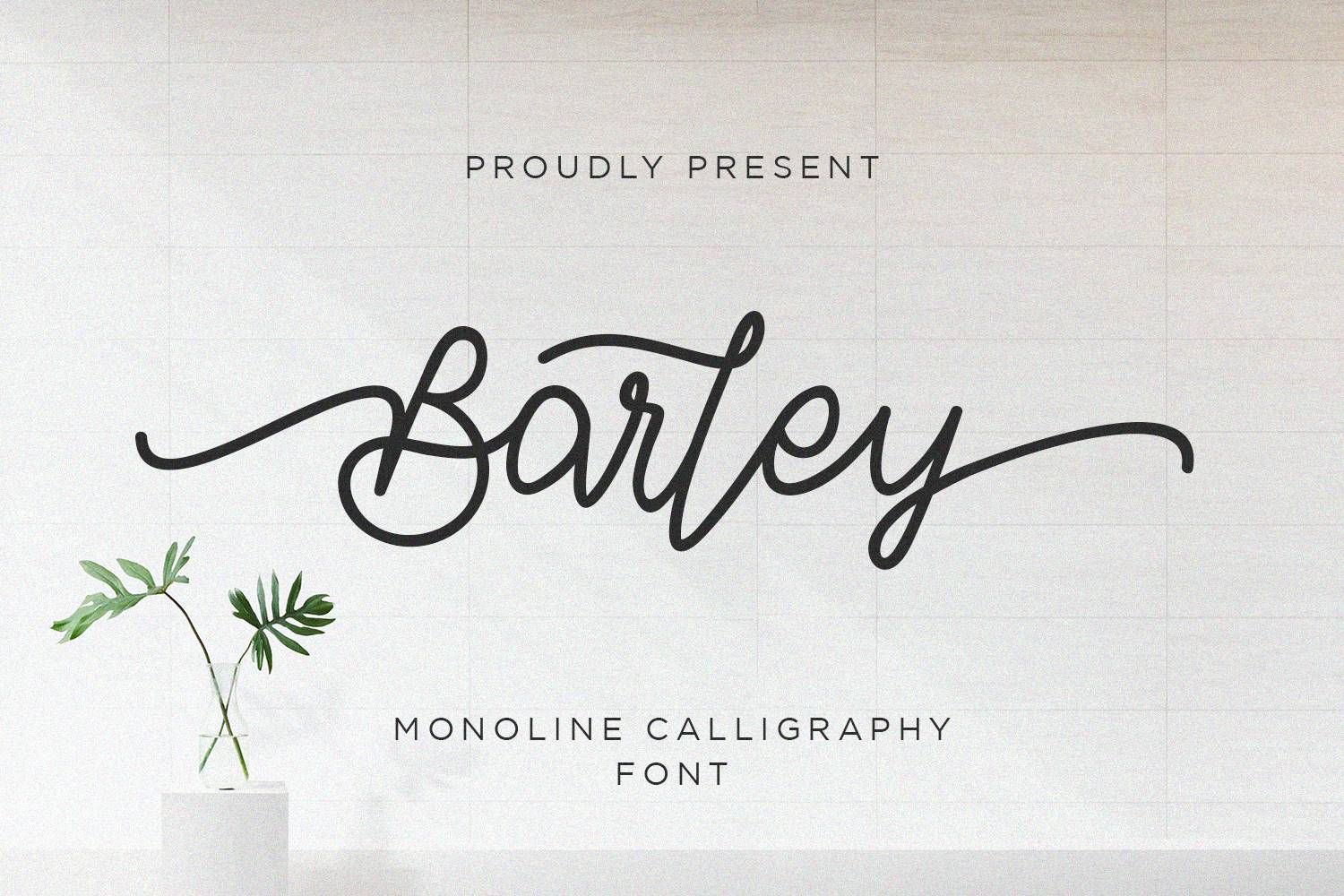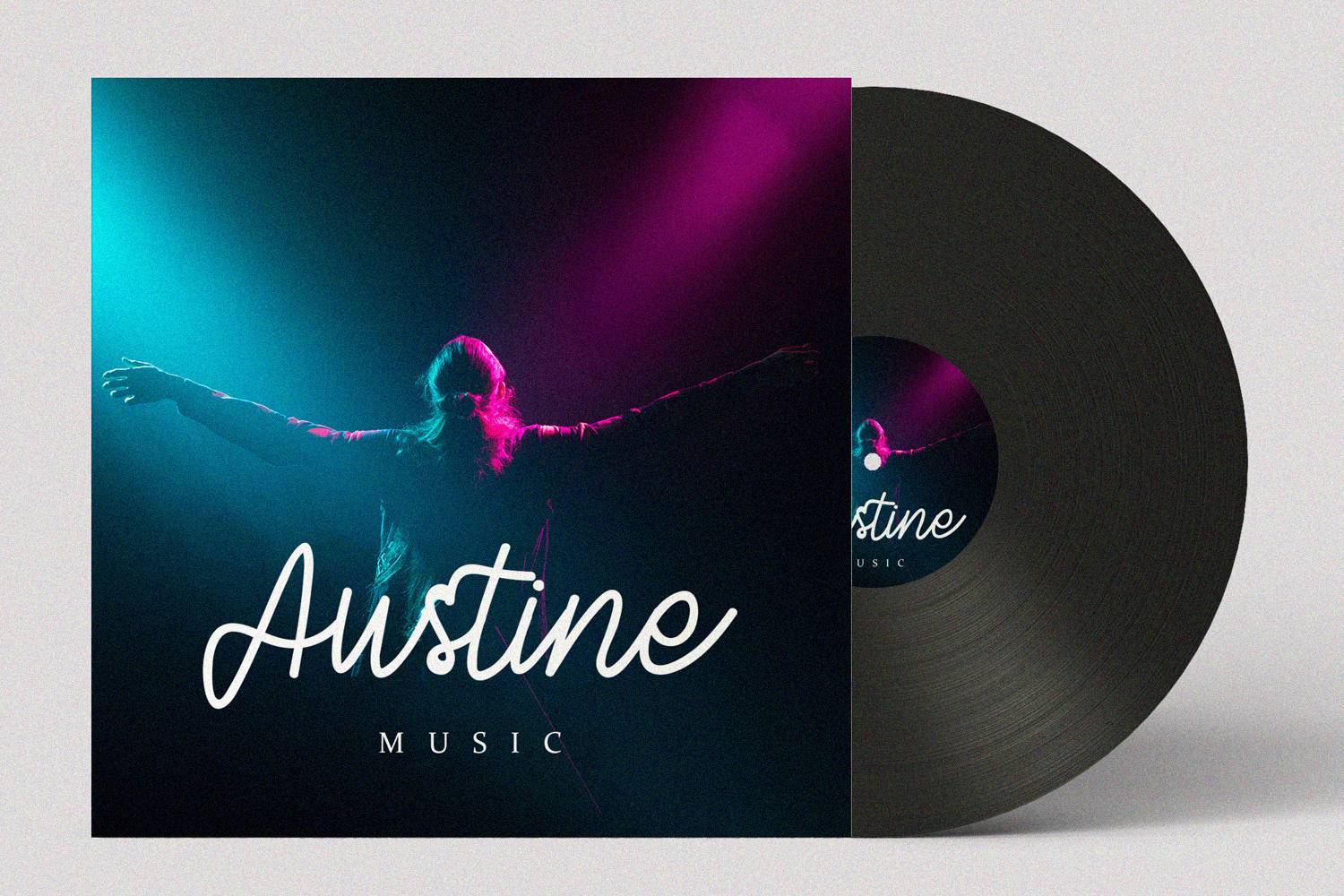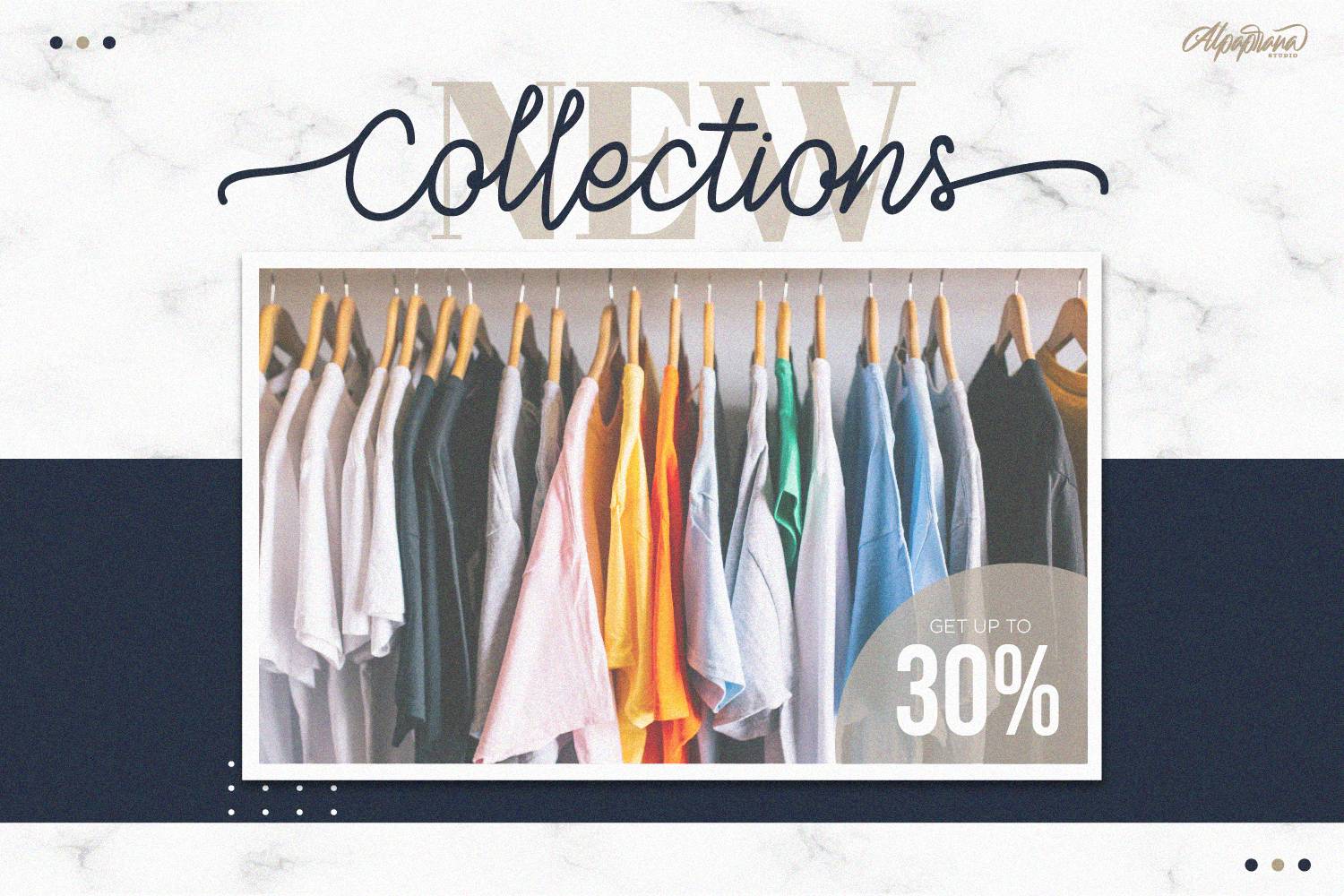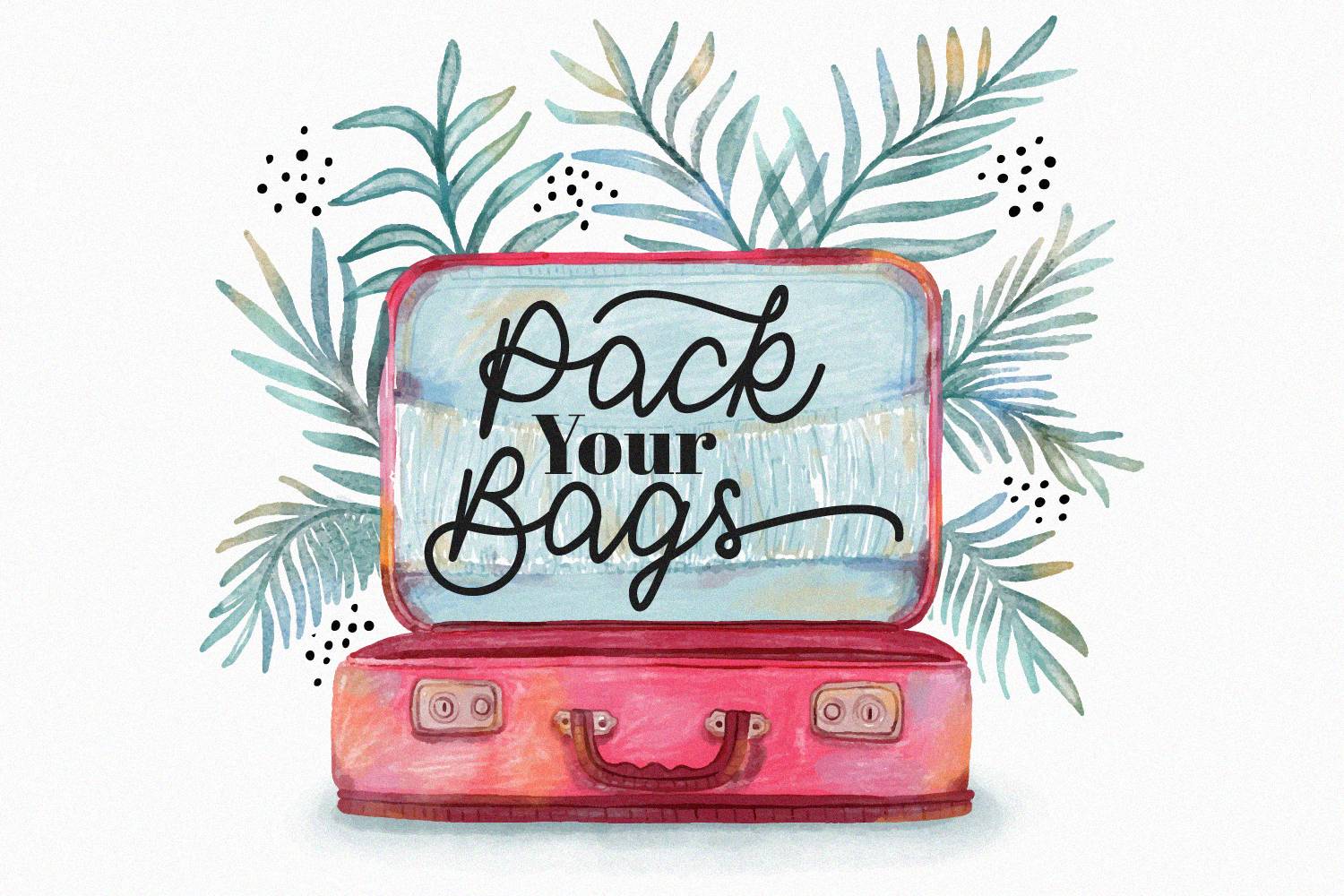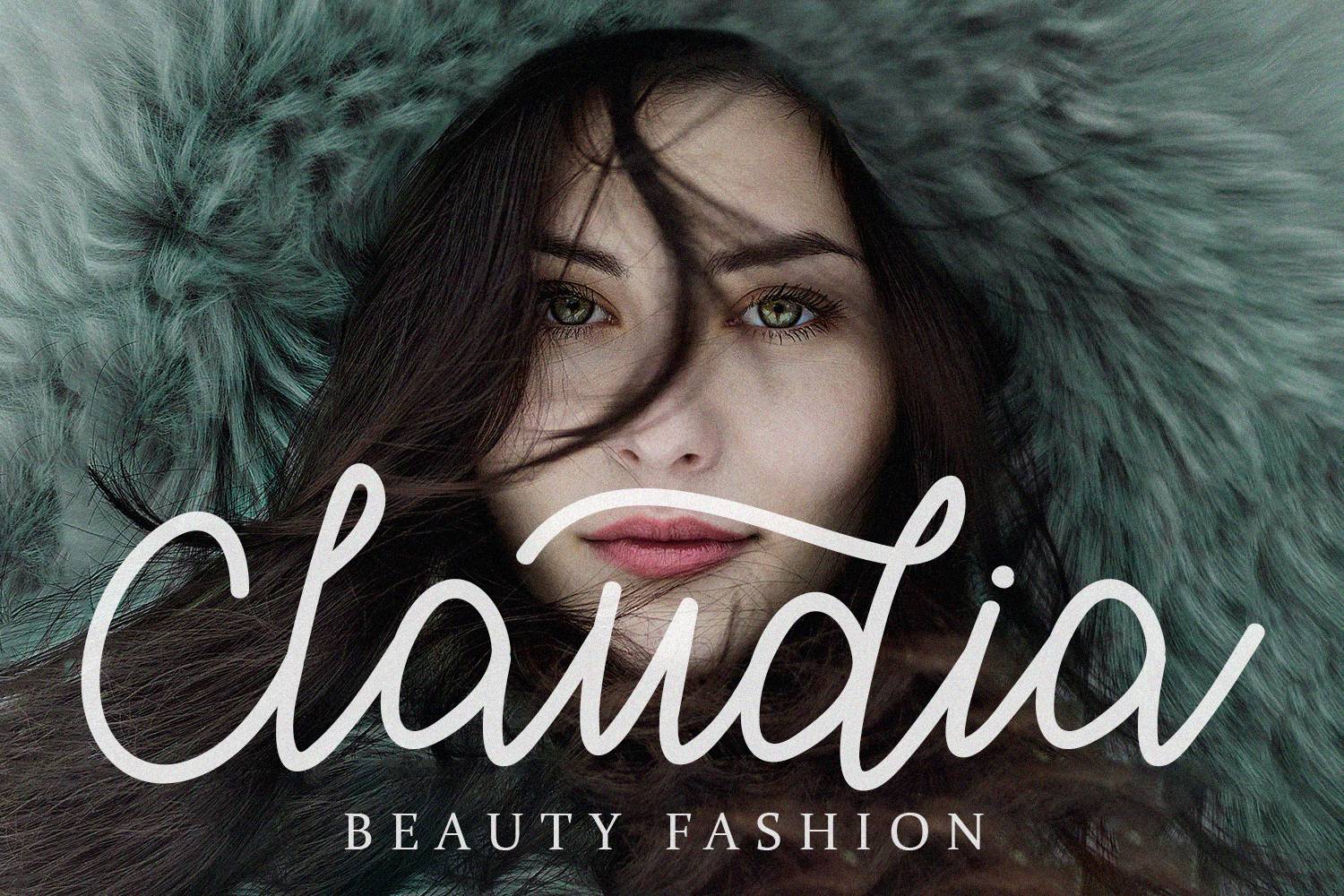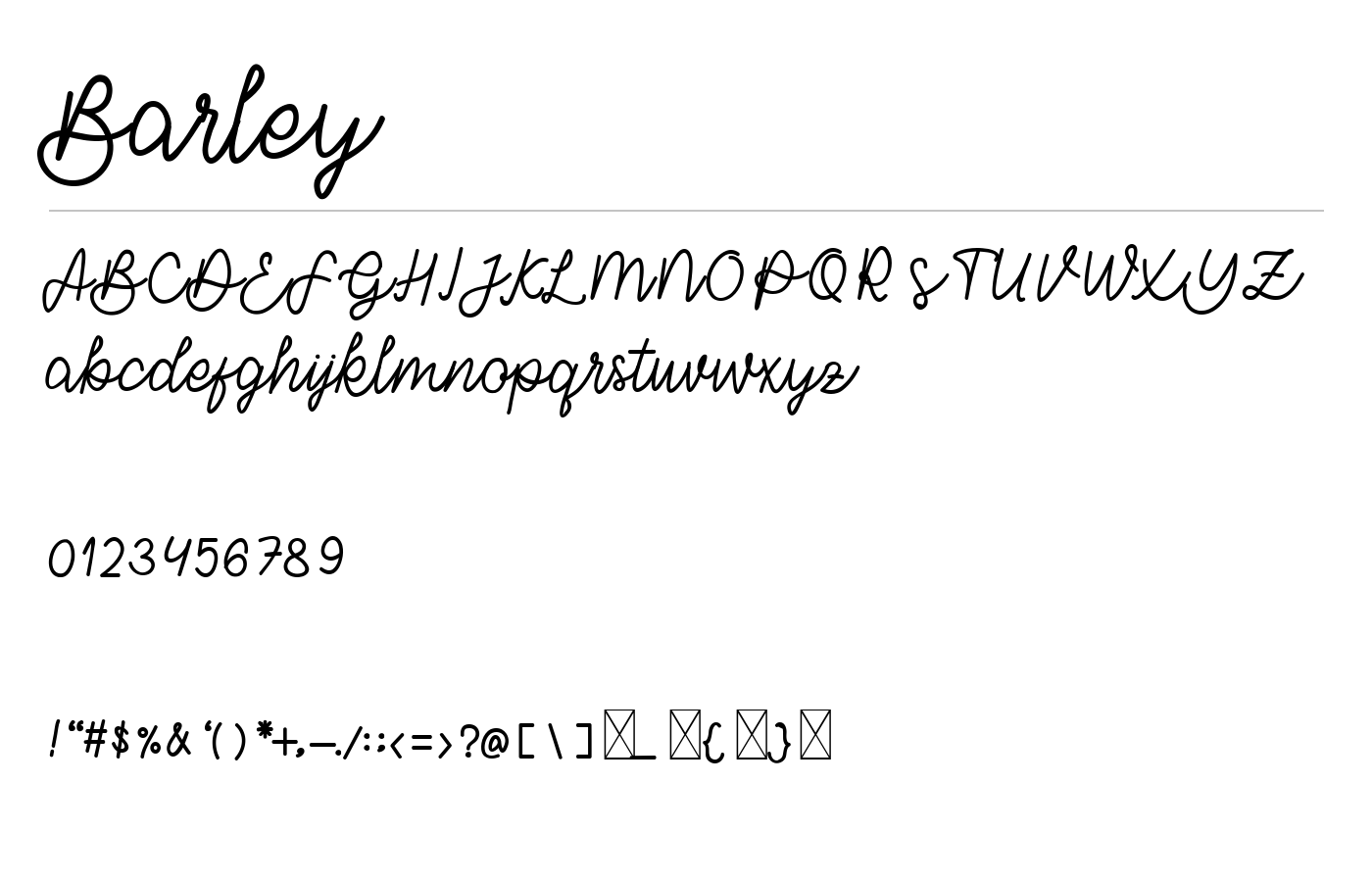
Barley is a delicate, handwritten script font characterized by its light, smooth strokes and graceful, flowing letterforms. It exudes a casual yet elegant charm, making it ideal for personal branding, invitations, and creative projects that seek a warm, approachable feel. This font works well in headlines and decorative text where a touch of friendliness and sophistication is desired.